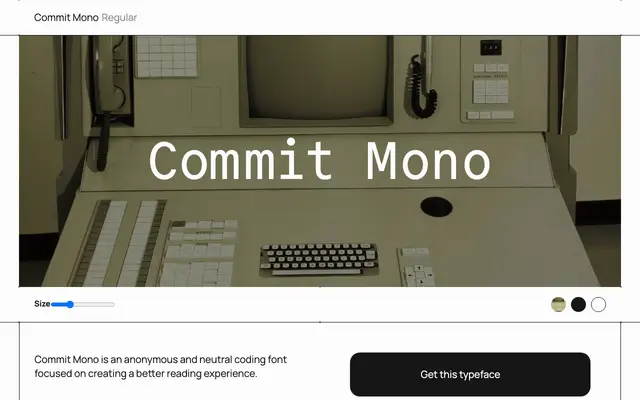
Commit Mono
A monospaced typeface in a single Regular weight, built for coding and terminal use.
A clean, utilitarian monospaced font aimed at developers and programmers. With only a Regular weight available, it keeps its scope narrow and focused. Suited to code editors and terminal environments where legibility at small sizes matters most.
Commit Mono is explicitly a monospaced typeface designed for coding environments, with a neutral, utilitarian character typical of programmer-oriented fonts.